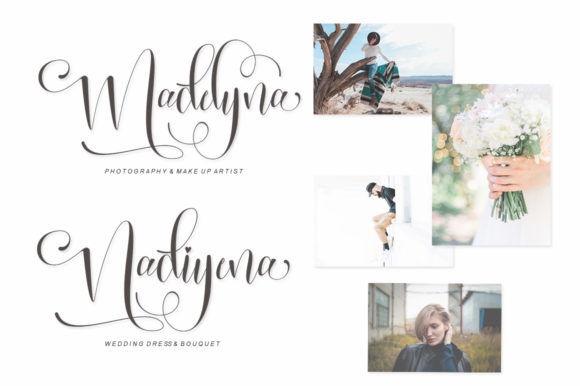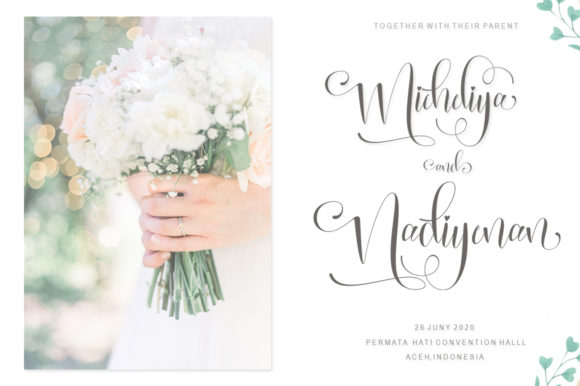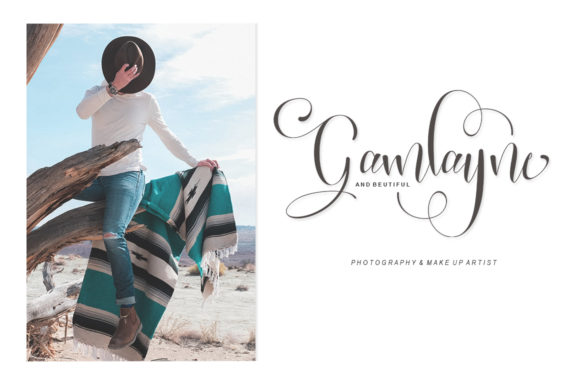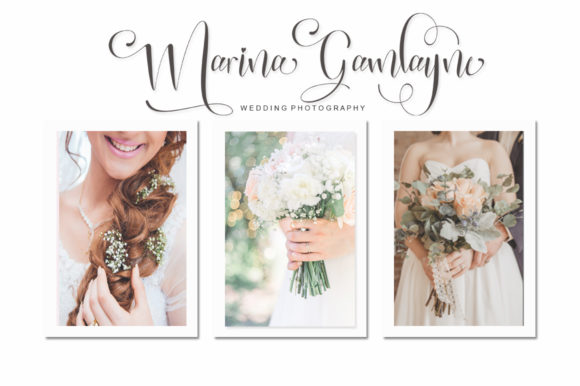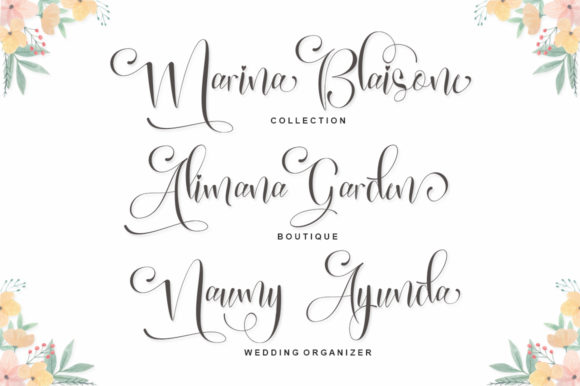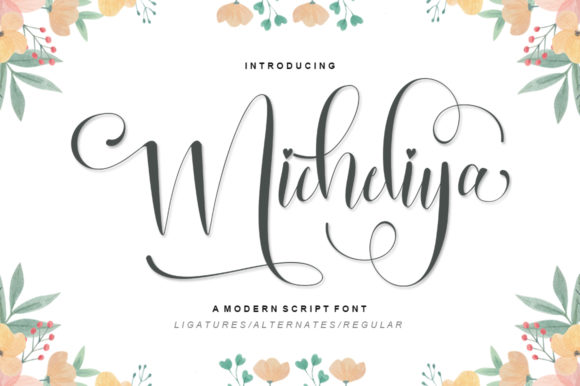
Introduction to Micheliya Font
Have you ever found yourself in the midst of a creative project, staring at a blank page, desperately searching for the perfect font to bring your vision to life? That’s exactly where I was when I stumbled upon the enchanting Micheliya Font. Its elegant script design immediately caught my attention, and I knew I had to dive deeper.
As a designer, I can attest to the importance of having a reliable design resource like the Micheliya Font in your toolkit. This stunning font offers a perfect balance of timeless elegance and authentic calligraphy, making it an ideal choice for any creative project. Whether you’re working on a high-quality brochure, a website, or a social media campaign, Micheliya Font is sure to elevate your design to the next level.
Key Features of Micheliya Font
- Unique and elegant script font with a transparent background, ideal for adding a touch of sophistication to your designs.
- Supports a wide range of languages, making it a versatile choice for multilingual designs.
- Perfect for use in various creative projects, such as logo designs, wedding invitations, and social media graphics.
Honest Review: Micheliya Font
As a designer, I’m always on the lookout for high-quality design resources to elevate my creative projects. The Micheliya Font caught my attention with its elegant and sophisticated look.
Here are the things that work well for me:
- ✨ Unique and creative font style that adds a touch of sophistication to any project.
- ⚠️ The font doesn’t have a transparent background option, which might limit its use in certain design scenarios.
- ⚠️ Some users might find the font too ornate or overwhelming, depending on the project’s tone and style.
Overall, I’m impressed with the Micheliya Font and would definitely consider using it in my future creative projects. Its unique style and high-quality files make it a valuable addition to any designer’s toolkit. With a little creativity and experimentation, I’m confident that this font can help designers achieve their vision and elevate their work to the next level.
The Micheliya Font is a high-quality, versatile font perfect for any creative project. With its unique design and transparent background, it’s an excellent addition to any design resource collection.
Getting the Most Out of Micheliya Font
To get the most out of the Micheliya Font, use it in combination with other design elements to create visually appealing graphics. Experiment with different font sizes, colors, and styles to achieve the desired look.
The Micheliya Font is suitable for a wide range of creative projects, including:
- Graphics and illustrations
Does the Micheliya Font have a transparent background?
No, the Micheliya Font is a solid font and does not have a transparent background. However, you can use design software to create a transparent background for your text or logo.
Is the Micheliya Font a high-quality design resource?
Yes, the Micheliya Font is a high-quality design resource, carefully crafted to provide a unique and professional look for your creative project. With its clear and legible characters, it’s perfect for a variety of design applications.